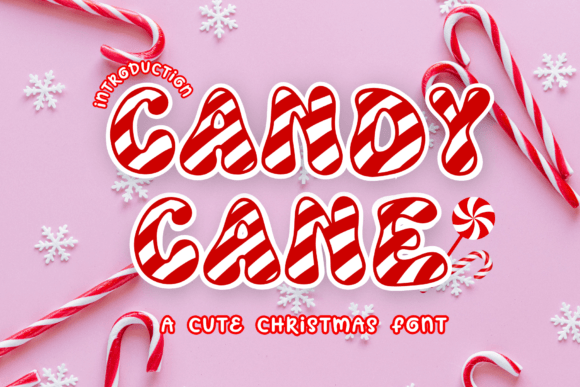
Candy Cane Font: Bring the Festive Spirit to Your Designs
Do you remember the very first time you saw a candy cane hanging on a Christmas tree branch? The twinkling lights, the soft glow of the ornaments, and the sweet scent of the tree filling up the room? Those are the moments that make the holiday season truly magical. And now, you can relive those memories through a font that captures the essence of the festive season.
Candy Cane Retro is a fun, festive, and incredibly unique decorative font that can add a touch of holiday cheer to your designs. Whether you’re creating a Christmas card, a holiday invitation, or a festive social media post, this font is sure to bring a smile to your audience’s faces. As a designer, you’ll appreciate the versatility and playfulness of Candy Cane Font, making it a valuable addition to your toolkit.
Candy Cane Font Key Features
- Font Type: Display Font
- Unique Characteristics: Distinctive red and white stripes, reminiscent of candy canes, with a bold and playful feel
Candy Cane Font Review
Overall, I think the Candy Cane Font is a fun and playful addition to any design project. Here are some of its strengths: ✨
- Its whimsical and festive design makes it perfect for holiday-themed projects.
- It’s a great option for designers who want to add a touch of nostalgia and retro charm to their work.
- The font is highly customizable, allowing designers to adjust its color, size, and spacing to suit their needs.
- The font may be too playful for more serious or formal projects, and could detract from the overall message.
- It may not be suitable for projects that require a more traditional or elegant look.
- The font’s high level of customization can also make it difficult to maintain consistency across different elements of a design.
Overall, I think the Candy Cane Font is a great option for designers who want to add a touch of fun and whimsy to their work. While it may not be suitable for every project, it’s a great choice for holiday-themed designs or projects that require a playful touch.
Use the Candy Cane Font to add a festive touch to your designs, especially during the holiday season. Experiment with different font sizes and colors to create a unique look. You can also pair it with other fonts to create a fun and playful combination.
The Candy Cane Font is perfect for:
- Holiday-themed designs
- Children’s party invitations
- Food labels and packaging
- Use the Candy Cane Font to create the main message of the card, such as “Merry Christmas” or “Happy Holidays”.
- Combine the font with bold, red and white stripes to create a classic candy cane look.
- Consider adding some festive illustrations, such as snowflakes or holly leaves, to add depth and visual interest to the design.
- Use the Candy Cane Font to create a bold, eye-catching message, such as “Sweet Treats” or “Candy Galore”.
- Combine the font with colorful illustrations of candy canes, cupcakes, or other sweet treats to add visual interest.
- Consider adding some 3D effects or textures to give the sign a more realistic look.
- Use the Candy Cane Font to create a beautiful, flowing message, such as “Love is Sweet” or “Sugar and Spice”.
- Combine the font with delicate,
What is Candy Cane Font?
Candy Cane Font is a decorative sans-serif font that features a distinctive red and white striped design, reminiscent of traditional candy canes. It is often used for festive and holiday-themed projects, such as Christmas cards, gift tags, and packaging.
Create a festive and playful Christmas card using the Candy Cane Font. This font is perfect for adding a touch of whimsy to your holiday greetings.
Project 2: Candy Cane Bakery Sign
Create a fun and eye-catching sign for your bakery or candy store using the Candy Cane Font. This font is perfect for adding a playful touch to your branding.
Project 3: Candy Cane Wedding Invitation
Create a unique and memorable wedding invitation using the Candy Cane Font. This font is perfect for adding a touch of whimsy and romance to your special day.